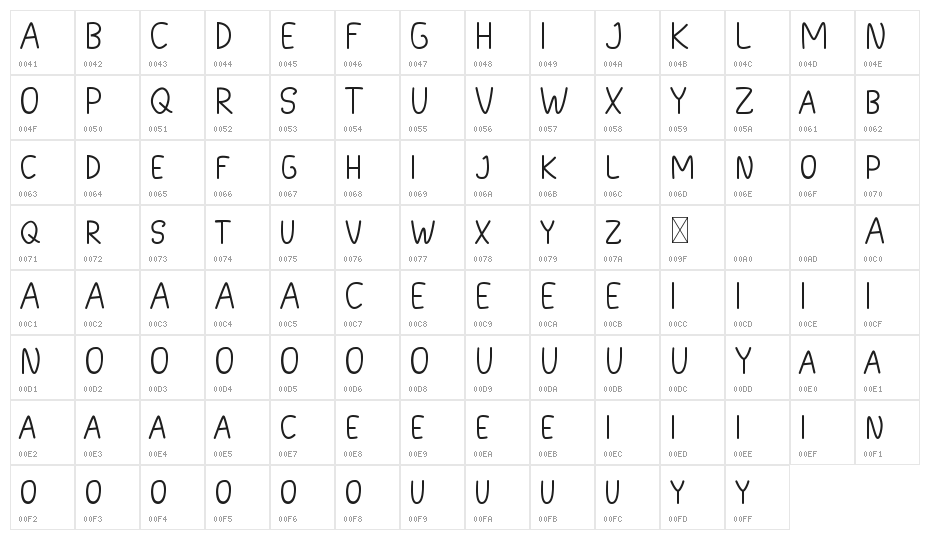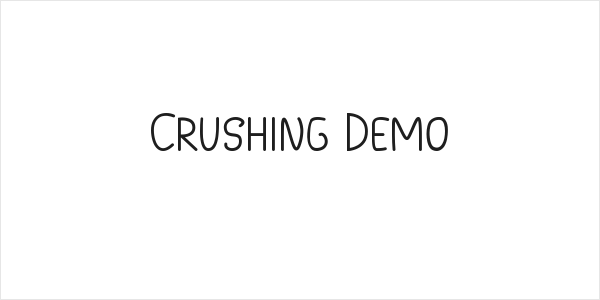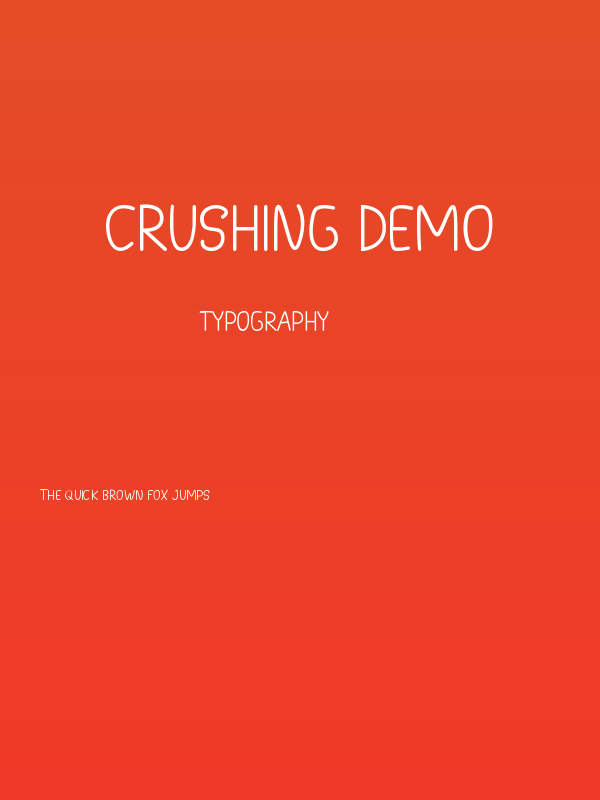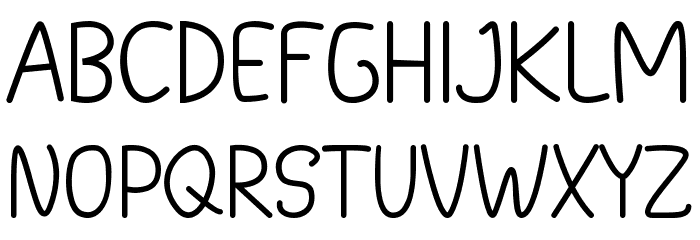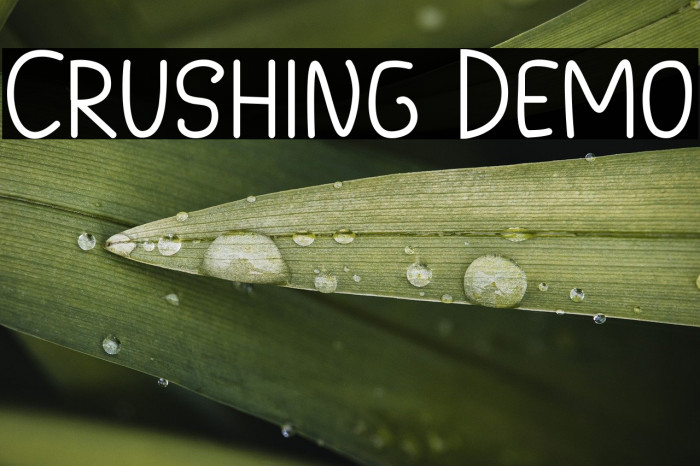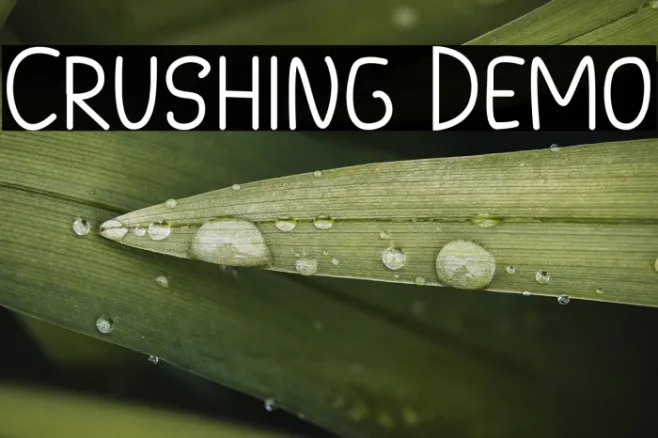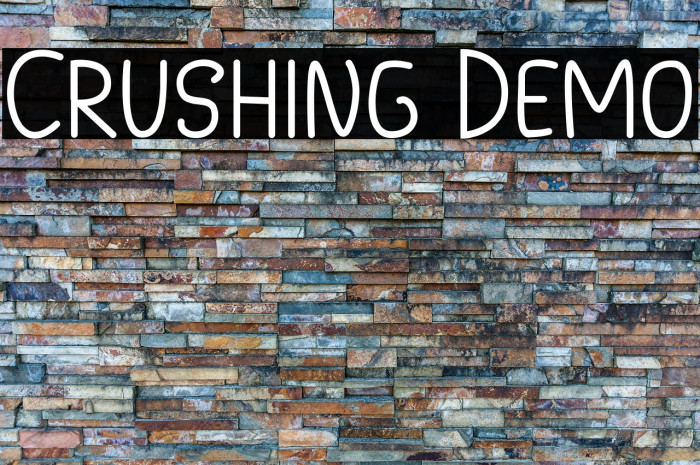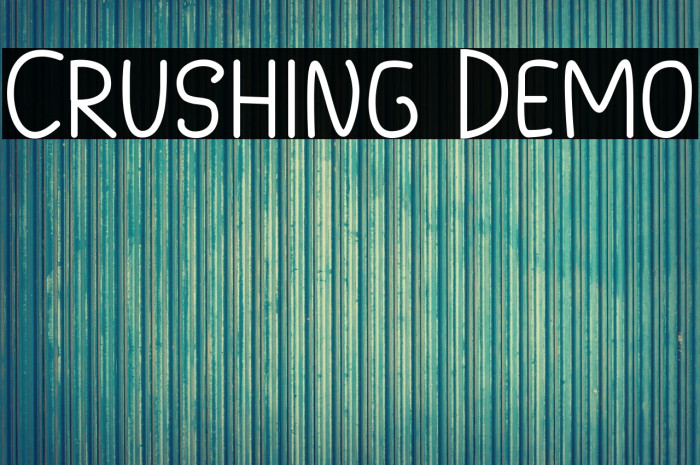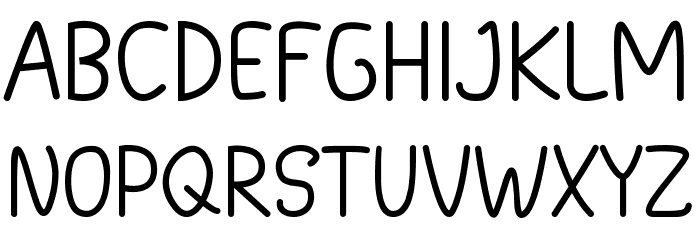
Crushing Demo Font
Crushing Demo Description
This font features a playful and rounded design, characterized by its smooth curves and consistent stroke width. The letters are evenly spaced, providing a clean and approachable appearance. Its simplicity and uniformity make it highly legible, while the rounded edges add a touch of friendliness and warmth. The font maintains a consistent height across all characters, contributing to its balanced and harmonious look. It's suitable for a variety of applications where a casual and inviting tone is desired.
| Proposed Projects | Ideal for children's books, casual branding, greeting cards, and playful advertising. |